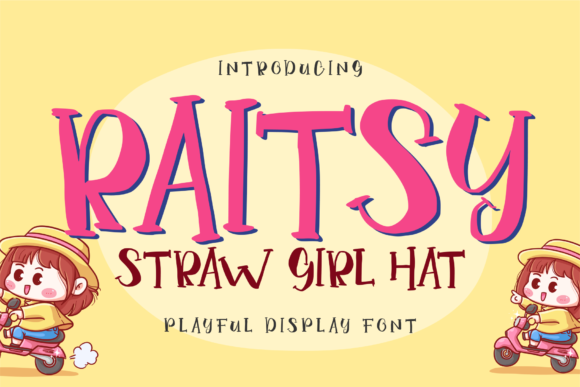
Prepare yourself to be charmed by Raitsy, a whimsical display font that will inject a burst of playful energy into your creative projects! Brimming with personality, Raitsy is the brainchild of brithostype, a visionary font foundry renowned for their exceptional artistry.
As a display font, Raitsy exudes an undeniable presence, demanding attention with its enchanting curves and playful strokes. Its delightful quirks and cheerful demeanor make it the perfect choice for designs targeting children, adding a touch of magic to games, animations, and any creation craving a cheerful vibe.
If you're seeking a font that sparks imagination and captivates young minds, Raitsy is your perfect companion. Its enchanting characters will transport your readers to a world of wonder, captivating their attention and leaving them enthralled. Unleash the storytelling potential of Raitsy and create designs that resonate with children, leaving an unforgettable impression that lingers long after the page is turned.
With its playful nature, Raitsy is not limited to children-centric designs. Its versatility extends to a myriad of creative projects, adding a touch of lightheartedness and charm to invitations, greeting cards, posters, and social media graphics. Let Raitsy infuse your designs with a sense of whimsy, inviting viewers to embark on a delightful visual journey.
Embark on a creative adventure with Raitsy, a font that ignites imagination and sparks joy. Its unique style and captivating presence will elevate your designs, leaving a lasting impression on your audience. Embrace the magic of Raitsy and transform your creative visions into extraordinary realities!